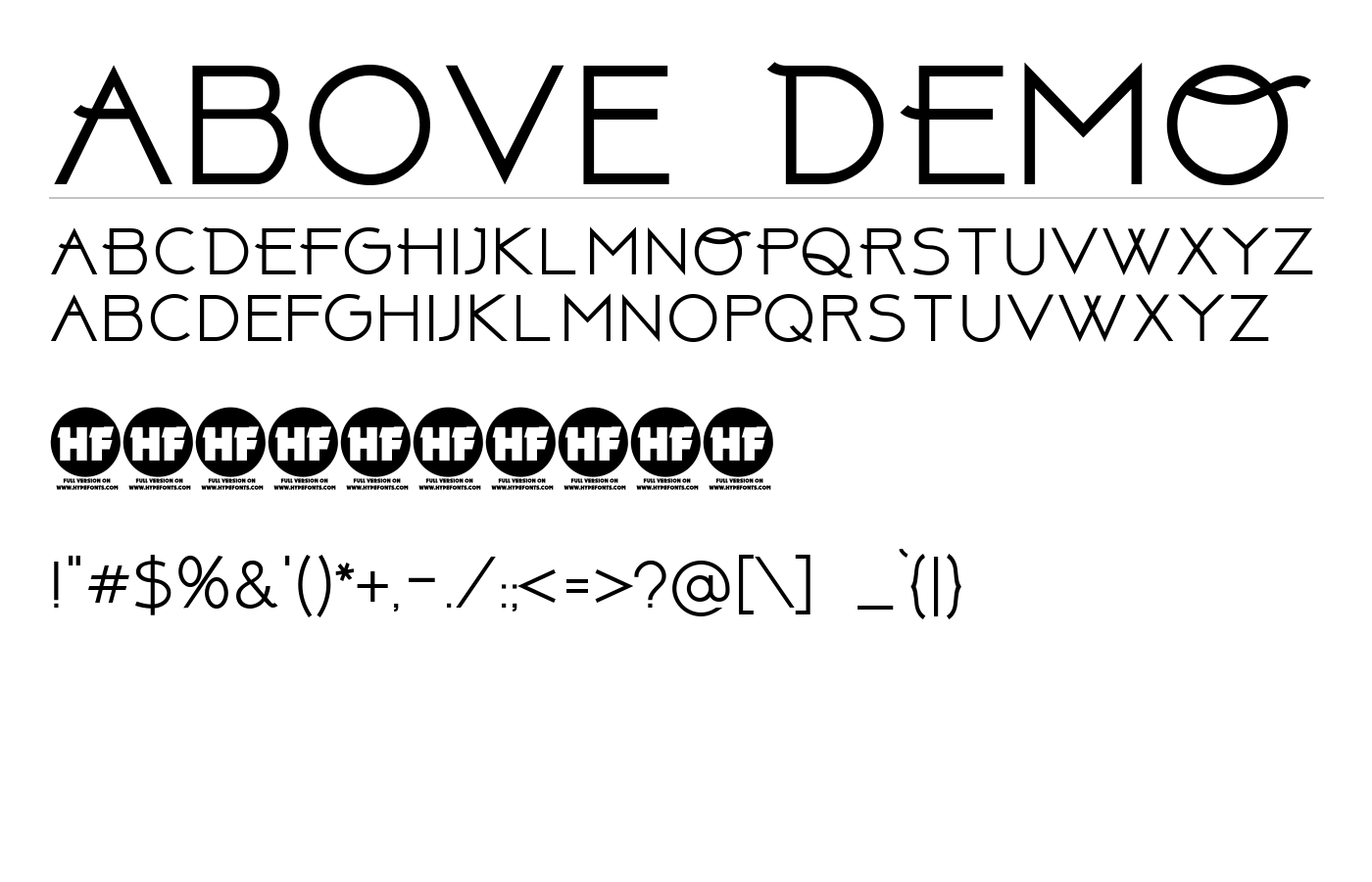
Above DEMO is a sleek, modern sans serif font characterized by its clean, geometric letterforms and subtle unique touches, such as the stylized crossbar and open counters. With a regular weight and moderate width, it offers a crisp and elegant feel, making it ideal for contemporary branding, headlines, and editorial design where a fresh, sophisticated look is desired. Its distinct shapes add personality without sacrificing readability, perfect for making a stylish yet professional impression.
Above DEMO Font
About Above DEMO Font